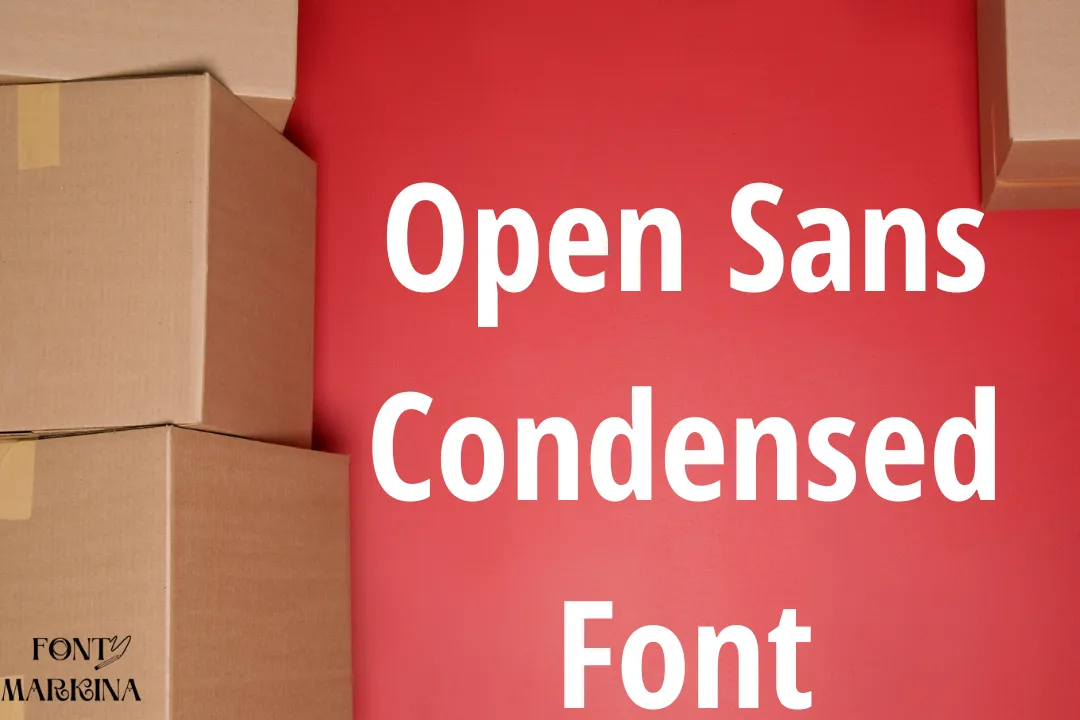
Open Sans Condensed Font
Open Sans Condensed Font was created by Steve Matteson, an intelligent designer who took charge of its creation. It is a sans-serif typeface that has very traditional components.
This gorgeous font family contains three different and powerful weights. Its outstanding weights are Bold 700, and Light 300, and the third one is Light Italic 300. This Font family also comprised some styles.
Each style has its exceptional look and feel. It is also included in Google’s font library. One outstanding specialty of this font family is available in both TrueType and OpenType formats. Its similar typeface which is Barlow Font has the same weights and features as this font family.
It supports almost all international languages. Also, another facility of its online generator tool is best for graphic designs and it is also specified in CSS and HTML.
Uses of Open Sans Condensed Font
This glorious typeface is used for a wide variety of projects and it is so impressive. This worth appreciating typeface is used for many creative functions such as headlines, web design, ads, and print design.
Many designers wish to use this bold font in their projects like special signatures, personal document reports, and so on. For more comfort and reliability use its alternative nexa font by making a strong pairing with this family.
It is best for designing t-shirts, logos, bags, and toys. This font is also capable of Adobe designing software and PowerPoint. In an educational environment, the use of this family is common for making charts, presentations, and diagrams. Moreover, you can also use it for personal blogs, and e-commerce Stores.
Open Sans Condensed Font
NameOpen Sans Condensed Font
DesignerSteve Matteson
Stylesans serif
Who is the manufacturer of Open Sans Condensed Font?
This stylish typeface was developed by a well-known and well-famed designer named Steve Matteson.
Is Open Sans Condensed Font a Google font?
Yes, this awesome typeface is a Google font. It is also available on our website.
Can I use Open Sans Condensed Font for my web designs?
Yes, This is a perfect choice for all of your web designs. You can easily use it for a lot of projects like website designs, templates, and others.
Is there any similar to Open Sans Condensed texture?
Sure, many typefaces have the same characters and features as this font family. But Calibre font is very closest as compared to all others.